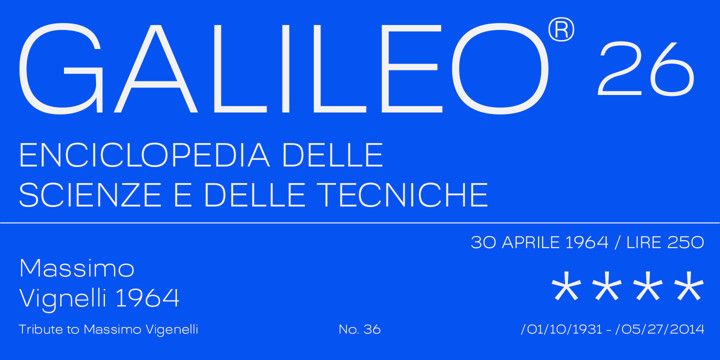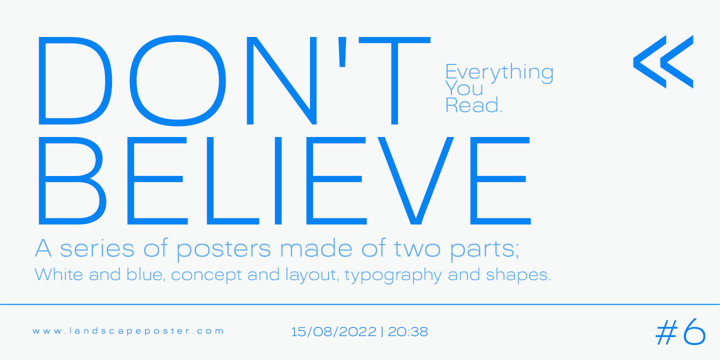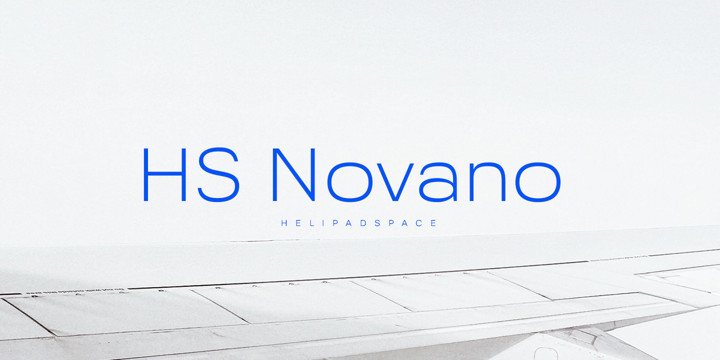
HS Novano Font
HS Novano FontIntroducing, HS Novano! A Modern San Serif with the clean touch. It looks modern and clean that can be used for all your project needs.This font can be used at any time and on any project.
So, HS Novano Font can’t wait to give its touch to all your design projects such as magazine, book, poster design, personal branding, promotional materials, logotype, product packaging, etc.